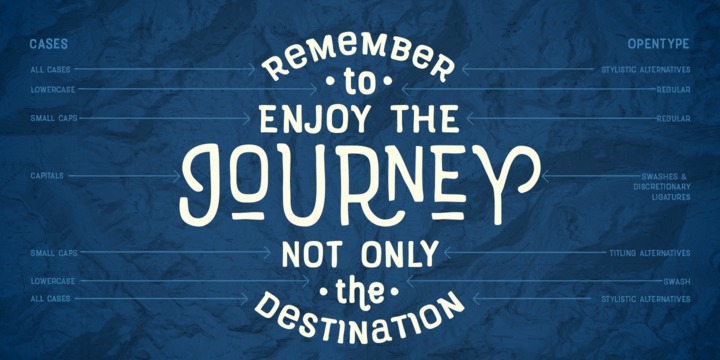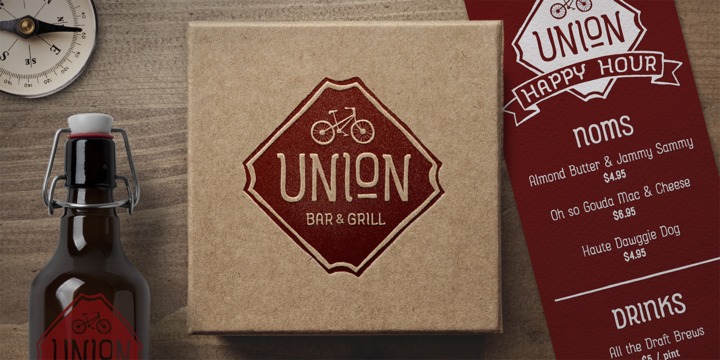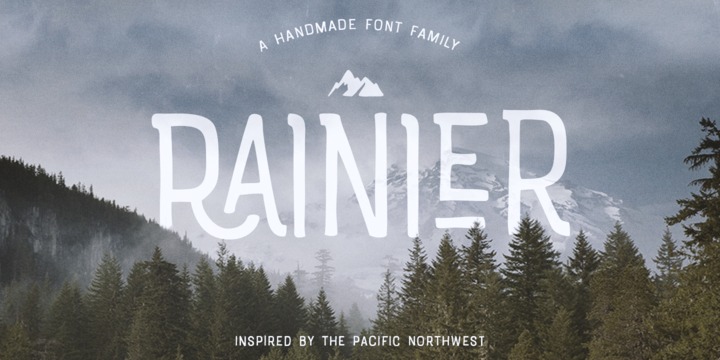
Rainier
Rainier Font Family
I was inspired to create the Rainier type family during my summer back home in the Pacific Northwest. The concept behind it may be simple – a hand crafted font family – but what it delivers is quite complex! Here is a breakdown of everything you get: